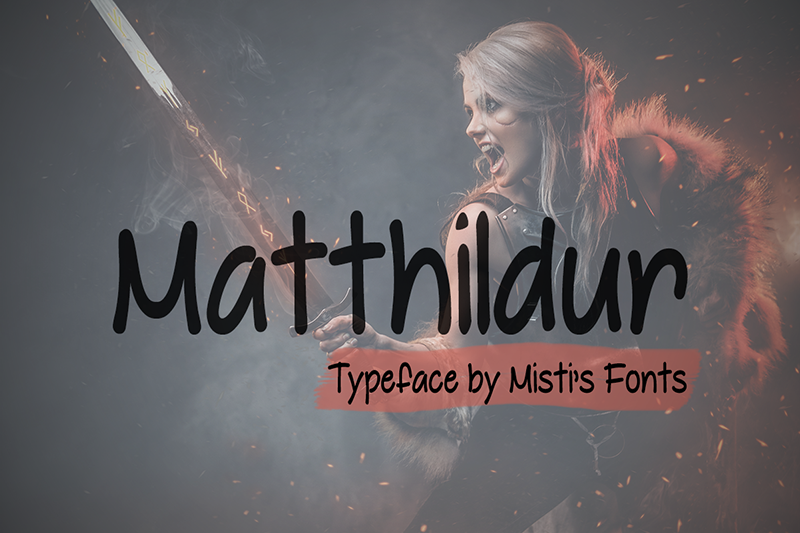
Preview and download Matthildur Font. Created by Misti's Fonts in Script Handwritten styles with Free for personal use license.
Font name: | Matthildur |
Matthildur is a bold cartoon-style typeface. Its fun and whimsical appearance would look great in a variety of projects, such as logos, shop banners, advertisements, product labels, and more. Terms Of Use and Commercial Licensing: https://mistifonts.com/matthildur/ |